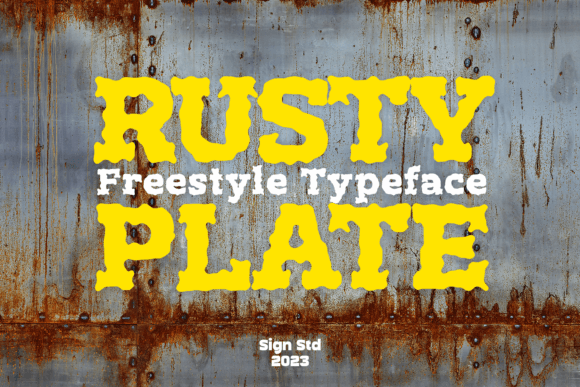
Journey through the Rustic Charm of Rusty Plate Font: A Font That Speaks Character and Vitality
Dive into the realm of captivating typography with the Rusty Plate font, a creation by Sign Studios that embodies the essence of creativity and raw, natural beauty. This display font evokes a sense of nostalgia and authenticity, leaving an indelible mark on your designs.
Unleash your imagination and let Rusty Plate's distinctive character shine through your posters, brochures, apparel, and logotypes. Its bold strokes and weathered texture paint a picture of ruggedness and resilience, making it an ideal choice for capturing attention and conveying a message that resonates.
Forge an Unforgettable Connection with Your Audience:
1. Create Eye-catching Designs That Demand Attention:
The Rusty Plate font is a master of grabbing attention. Its unique style effortlessly draws the eye, making your designs stand out from the mundane. Let your words dance across posters and brochures, leaving an unforgettable impression on your audience.
2. Evoke Emotions and Tell a Story:
Rusty Plate's natural and creative aura lends itself beautifully to storytelling. Craft T-shirts and apparel that speak volumes, using Rusty Plate to convey a message that resonates deep within. Its weathered texture adds a touch of authenticity, making your designs more relatable and emotionally impactful.
3. Build a Strong Brand Identity:
Forge a unique brand identity that reflects your values and sets you apart from the competition. Rusty Plate's distinctive character lends itself perfectly to creating logotypes that exude personality and leave a lasting impression.
4. Embark on a Creative Adventure:
Rusty Plate is your passport to a world of boundless creativity. Its versatility knows no bounds, whether you're designing posters for a local theater, brochures for a rustic retreat, or logos for an outdoor adventure company. Unleash your imagination and explore the endless possibilities that await.
5. Access a Wealth of Glyphs and Alternates:
Embrace the charm of Rusty Plate and let its creative spark ignite your designs. Its natural and captivating style will transform your creations into works of art that resonate with your audience. Elevate your designs to new heights and make a statement that lingers in the minds of those who encounter it.